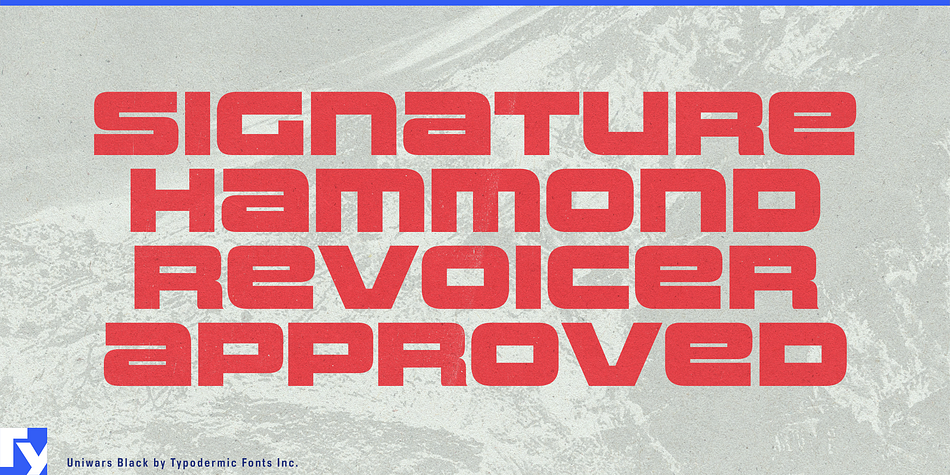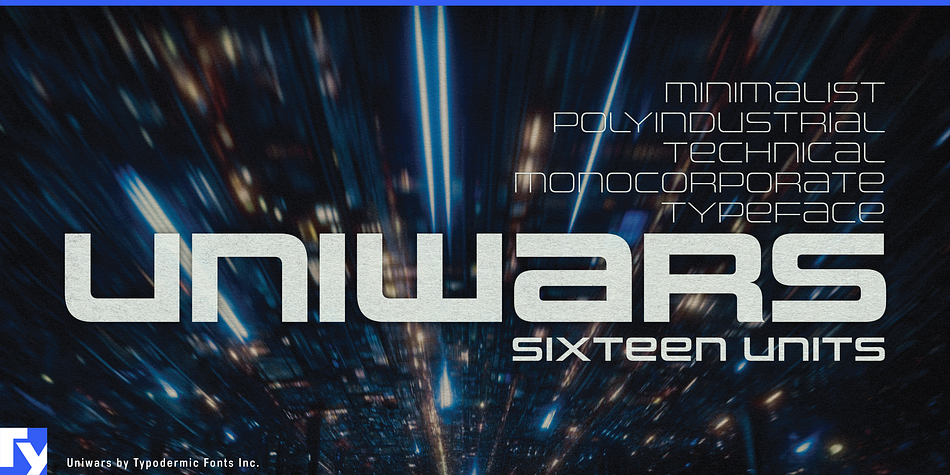
UNIWARS
Uniwars is a display sans font family. This typeface has sixteen styles and was published by Typodermic Fonts Inc.
Are you ready to take your designs to the next level? Look no further than Uniwars, the sleek and modern typeface inspired by industrial Japanese logotypes.
With its bold and unicase letterforms, Uniwars injects a sense of neoteric style into any design. Its wide, extended shape and clean orthogonal style are a true testament to the 20th Century Japanese minimalist/industrial design aesthetic.
But Uniwars isn’t just about style—it’s about functionality too. This typeface has been stripped down to its most basic components, resulting in a clean and efficient design that will elevate any project. And with eight weights and obliques to choose from, Uniwars gives you the flexibility to experiment and find the perfect fit for your specific design needs.
Whether you’re working on a branding project, a website design, or a publication layout, Uniwars is the ultimate industrial typeface that will help your work stand out from the crowd. Try it today and discover the power of neoteric design for yourself!